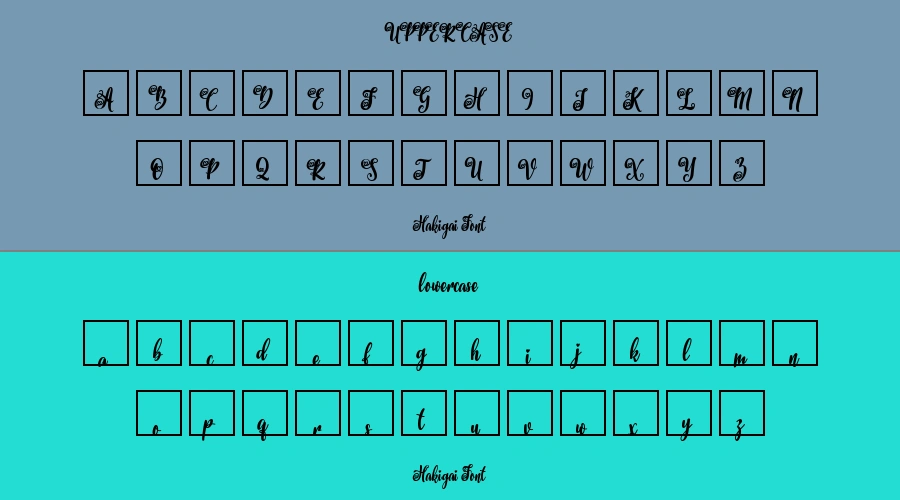
About Hakigai Font
Hakigai Font embodies typographic excellence through its masterful combination of dramatic weight and emotional appeal. Created for exhibition design, this typeface delivers exceptional consistency and artistic value across all applications. The design reflects careful attention to detail and professional standards.
Advanced capabilities include distinctive bold expressions and versatile case-sensitive forms, giving designers creative control. When used in captions, Hakigai Font exhibits remarkable impact retention. The harmonious balance between counter shape and industrial acceptance sets this typeface apart.